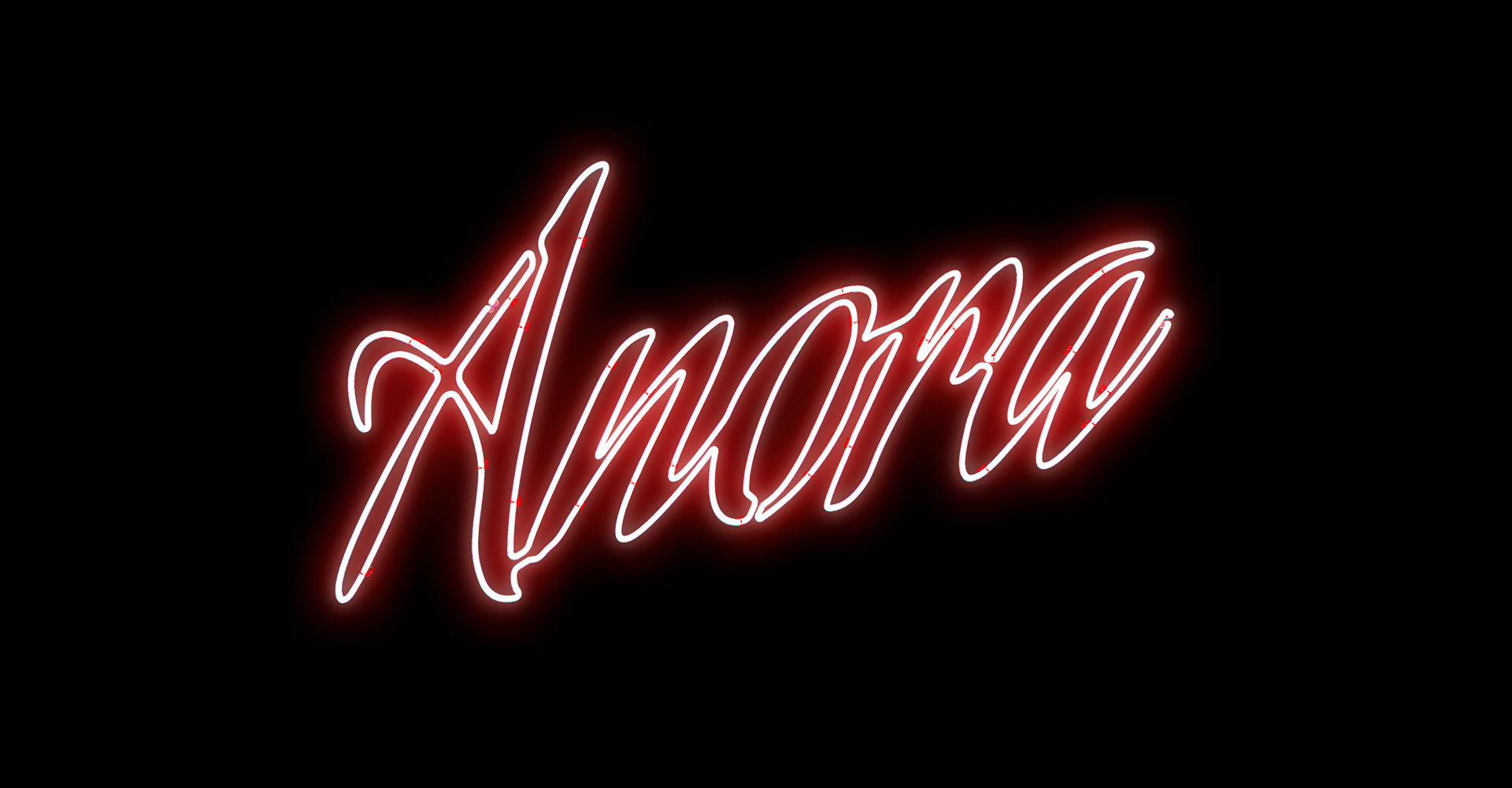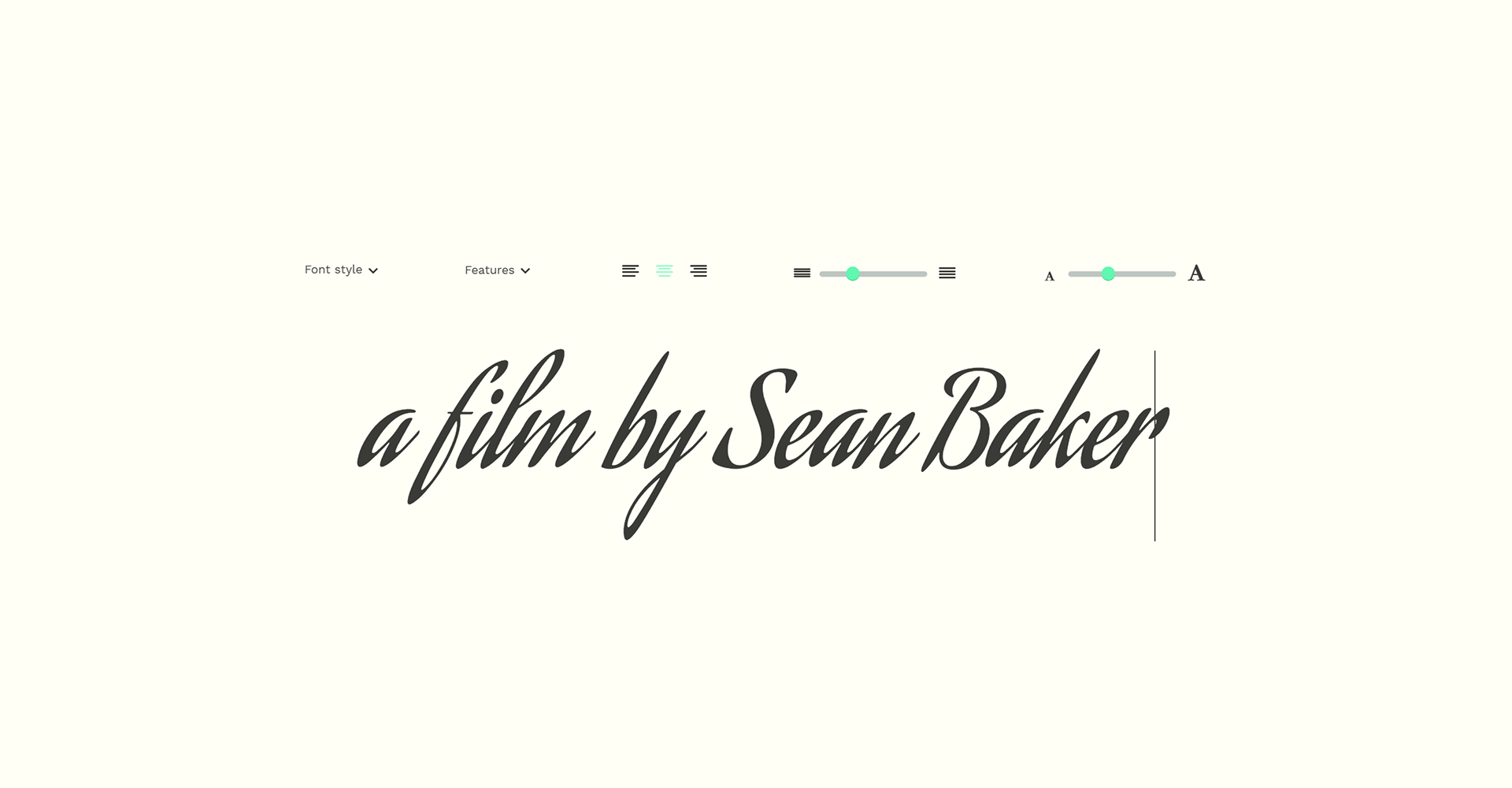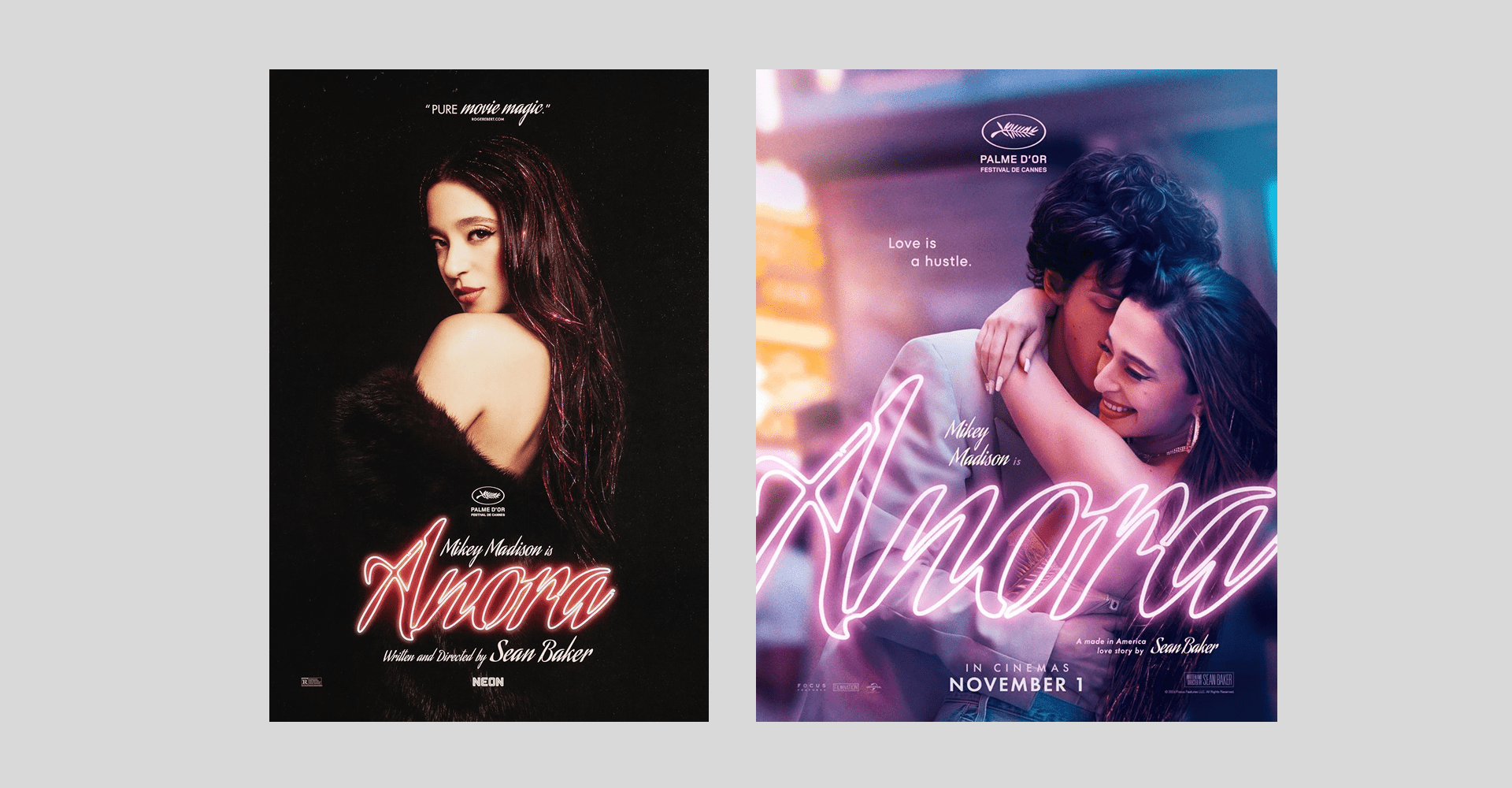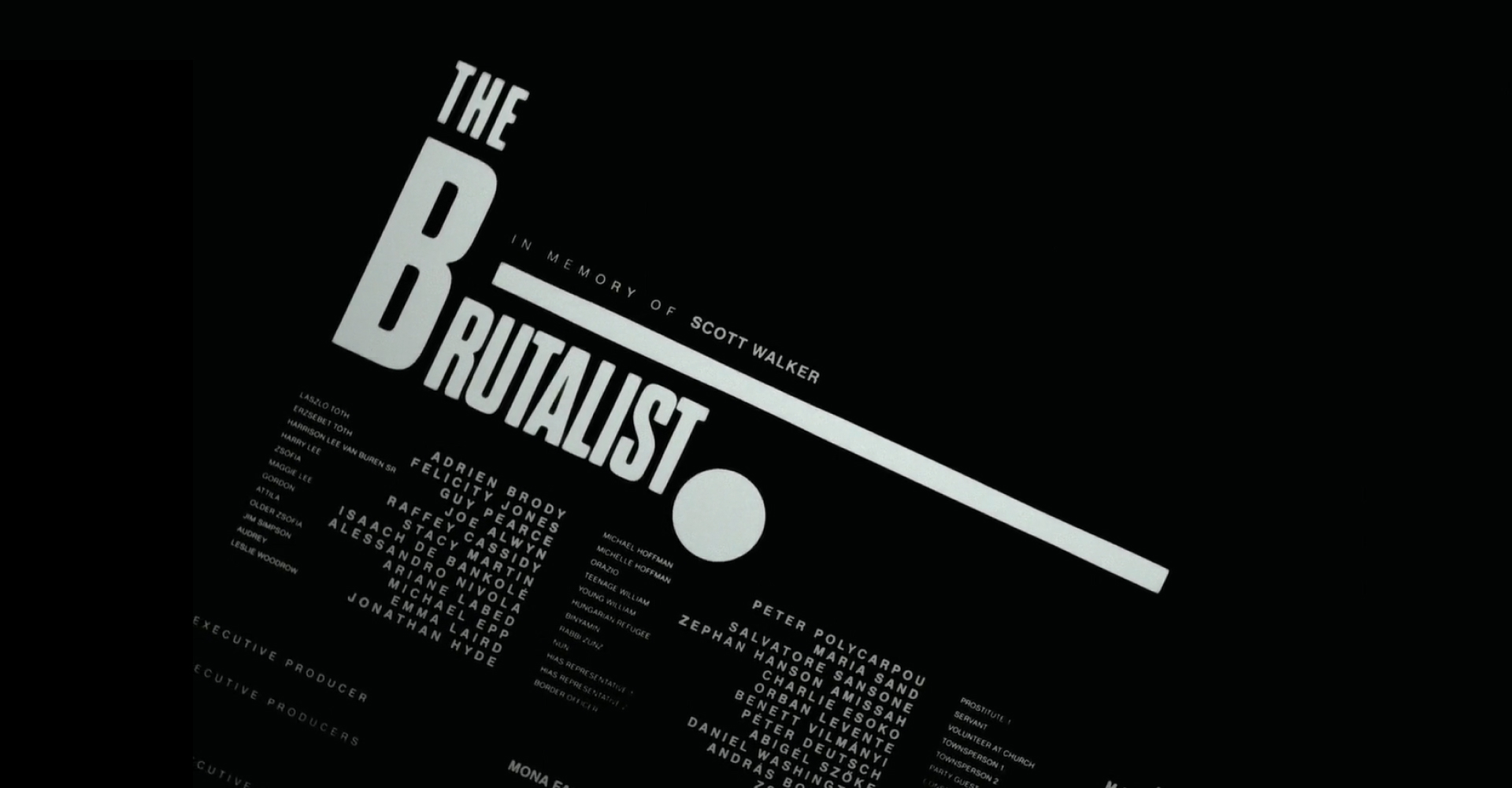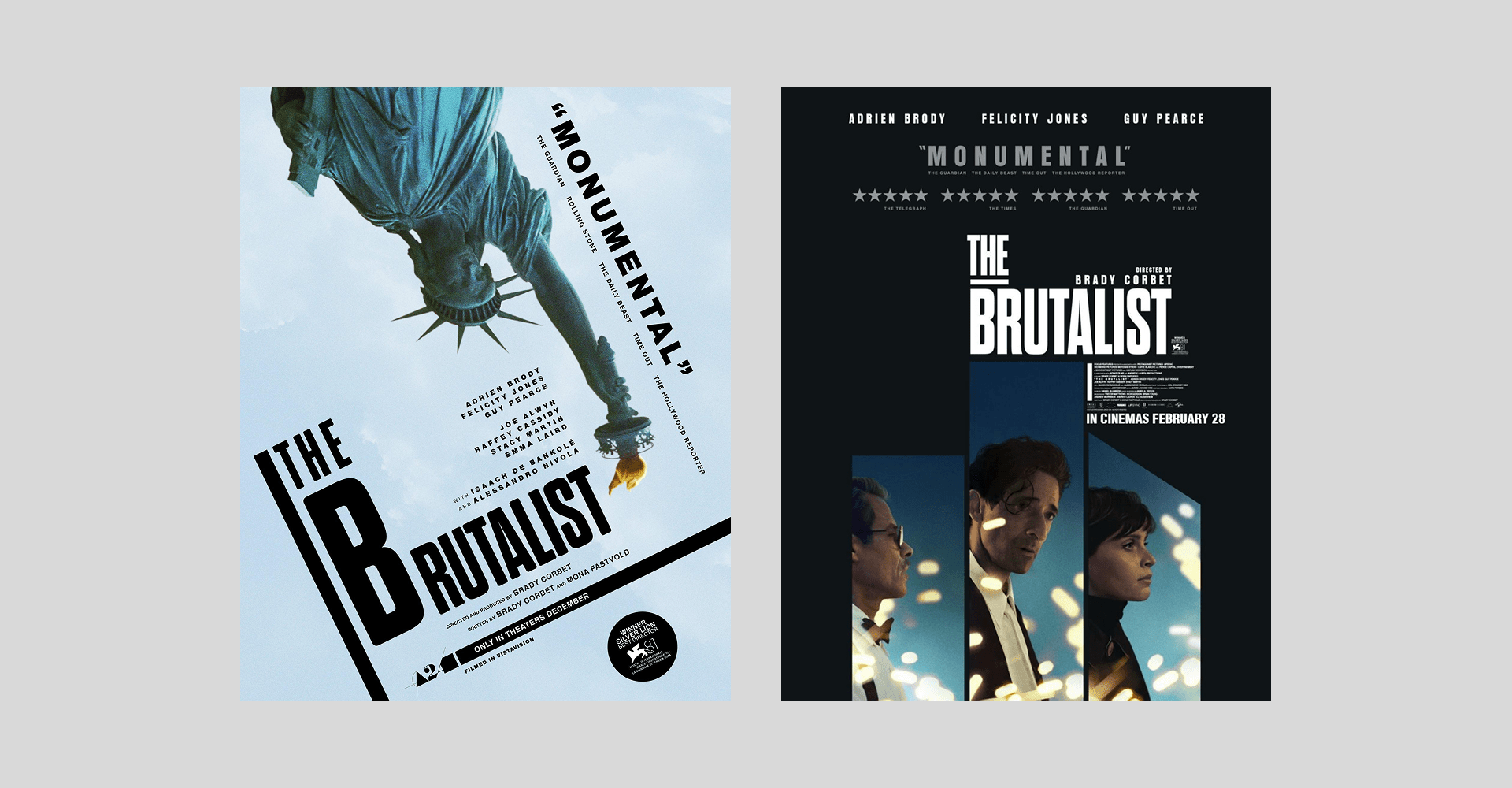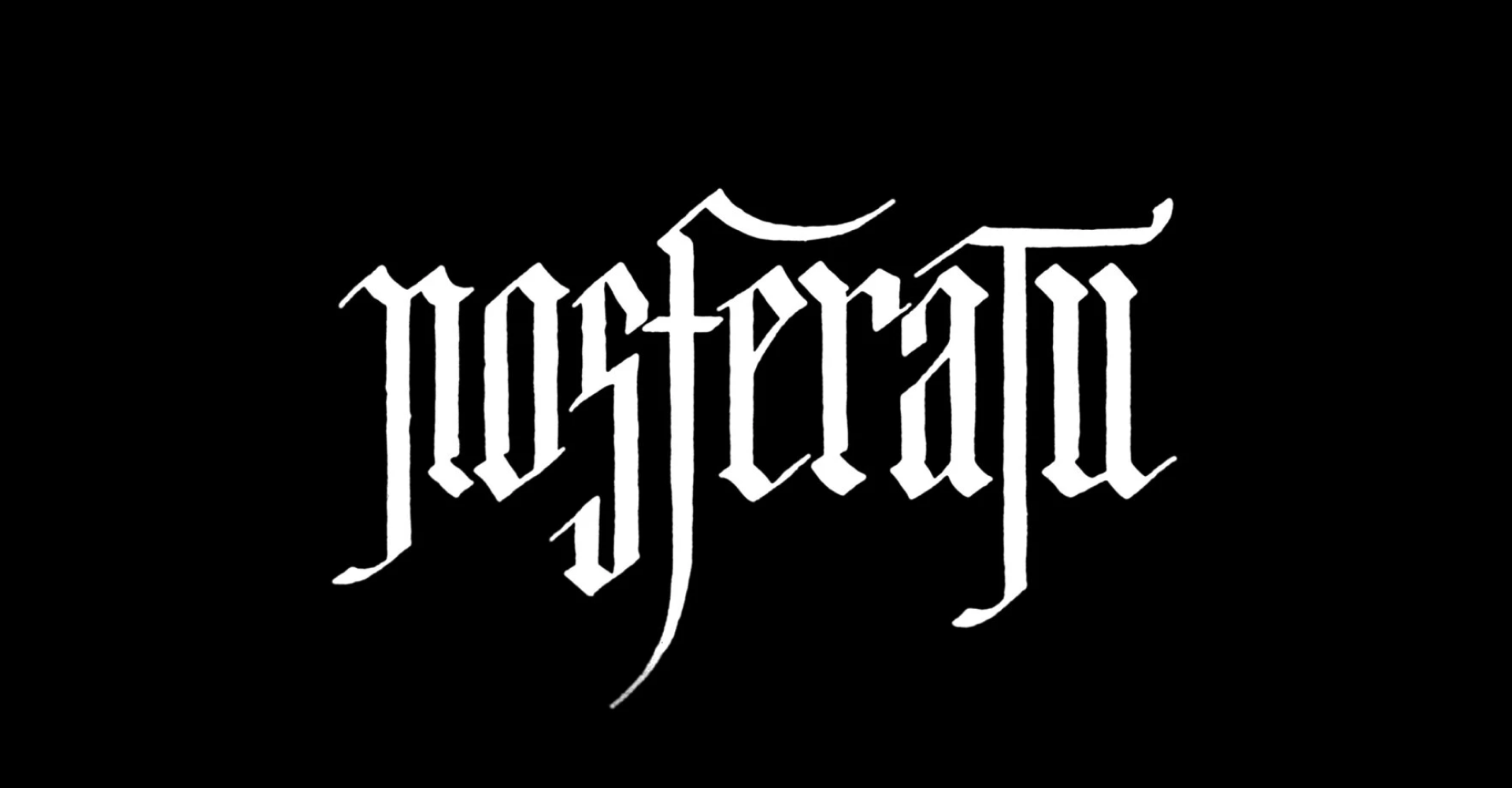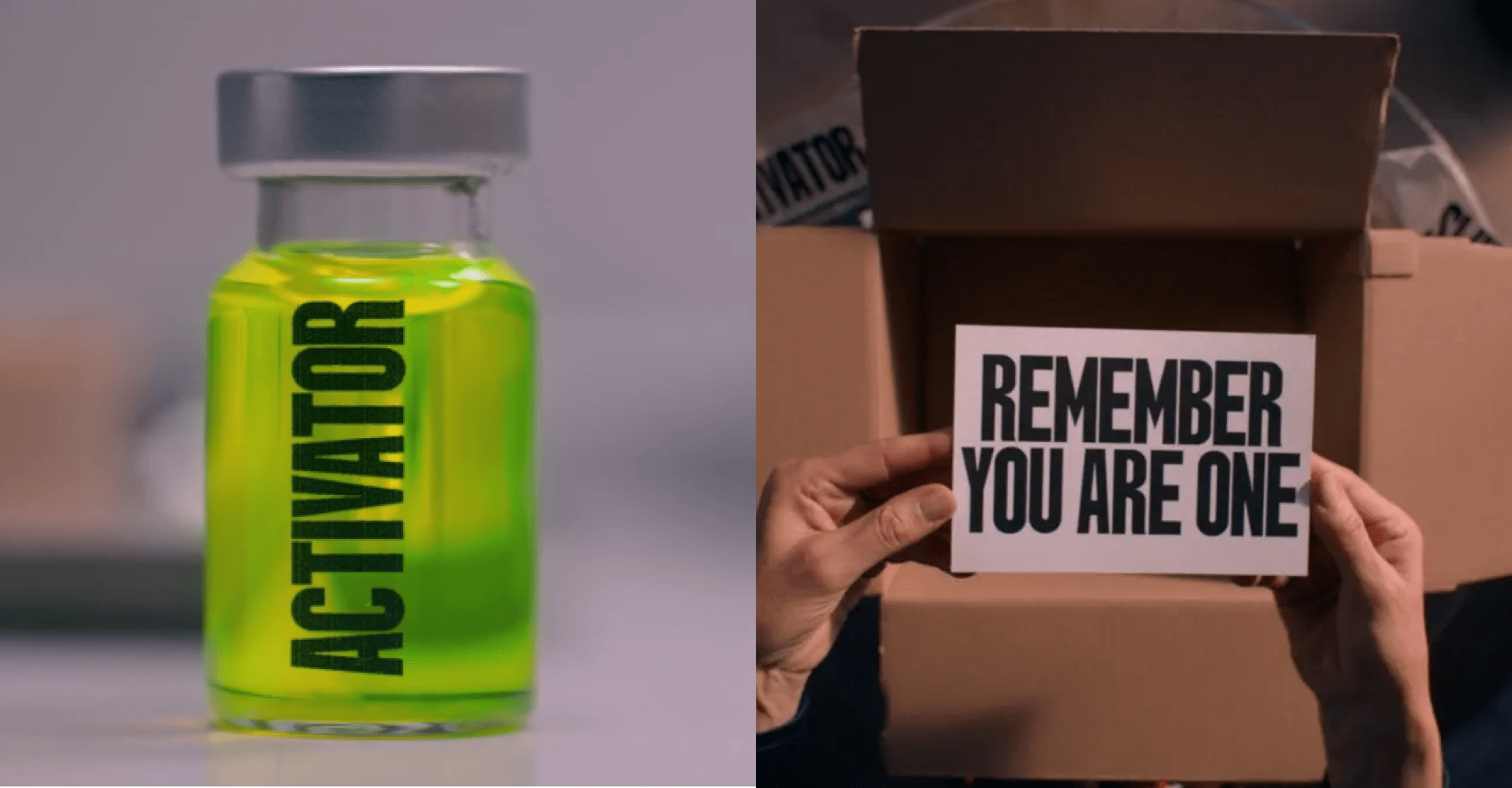
As the world prepares for the 97th Academy Awards, we too are gearing up to celebrate this iconic event. We are fascinated by every small detail that brings a movie to life. Typography and the art of title design are among those details that surprise us every year. Due to this not-so-secret passion, we’ve created a shortlist of some of the wonders found in this years nominated works. Our favorite movie titles and the hidden stories behind them. Discover how typography stole the spotlight in the big screen.
The titles for Wicked and Nosferatu created by Teddy Blanks
It’s not a common achievement to design the titles for two Oscar-nominated films, but for Teddy Blanks, it’s not as bizarre. Collaborating with huge names such as Greta Gerwig, Ben Stiller and Ari Aster, Blanks manages a directory of amazing film titles through his work at CHIPS, the New York-based graphic design studio he co-founded with Dan Shields and Adam Squires.
The lettering from L. Frank Baum’s first Oz book inspired the opening title for Wicked, a careful hand-made work that sprouted the audience with fairy-tale nostalgia.
Nosferatu brought an entirely different vibe to the screen, a gothic script that welcomed viewers into the haunting world of the movie. The work feels like it was made with a dip pen, a tool that traces back to Romain Britain. Dip pens require the user to constantly refill the ink from a bottle to continue working and they were the main writing instrument used in the 19th century. Germany, where the story of Nosferatu takes place, had a few outstanding dip pens manufacturers arount the 1800’s such as Heintze & Blanckertz and Soennecken.
Blanks worked closely with Robert Eggers, who predicts the designer to become one of the all-time greats when it comes to title design.
The upfront branding from The Substance
While ruthless and shocking, there’s a lot of scary relatability you can find inside The Substance. One of these aspects is the use of typography and branding, developed by Fugu Productions, a title and motion designed studio located in Paris, France.
The touchpoints displayed in the movie create a sense of urgency. It’s like the graphic translation of screaming into your face. While clean and minimalistic, the narrow, strong type conveys an authoritarian tone. A sort of aesthetic uneasyness.
The film does a lot of visual recalling to the 80’s. We can notice that trough the classic aerobics class set and costumes. In terms of typography, this decade featured a lot of bold, condensed sans-serif type over minimalistic backgrounds. Some examples can be found in Volkswagen printed advertisements from the 80’s, the Motorcycle Industry Council Inc. ad campaign (Futura Extra Bold Condensed) and the Akira logo (Schmalfette Grotesk).
We can see that trends are cyclical, since condensed type is becoming a preferred choice by current brands. Some of the reasoning behind this shift includes the need to stand out in overcrowded markets, taking a more agressive and vibrant approach to the way we present products. Also, narrow typefaces take up more space in vertical formats, prioritizing their visual positioning.
What are some brands that communicate similarily to The Substance in today’s market-place? Supreme comes to mind, as well as Nike’s use of typography.
The experimental layouts of The Brutalist
Sebastian Pardo was in charge of the title sequences for The Brutalist, a special chance to play around the elements of 20th-century design. Specially the influence generated by the Bauhaus movement, a pillar of graphic design history.
One of the main aspects from this period that made it into the movie was the experimental layouts, an often overlooked aspect of design that became a space of expression in the Bauhaus. Complex grids and text displays that followed different geometric shapes were common practices in their posters. As an example, the Bauhaus Weimar Exhibition poster by Joost Schmidt in 1923.
From the poster to the final credits of The Brutalist, we can see the use of diagonal layouts supported by lines that break and create spaces.
László Moholy-Nagy (who shares his first name with the main character of the film) was one of the teachers at the Bauhaus school of art. He advocated for the unhibited use of all linear directions, as well as the variation of typefaces, sizes, shapes and colors. His design vision was applied throughout publications and books released by the Bauhaus.
Herbert Bayer, one of his students, was trained in a variety of disciplines that converged in great developments such as the Universal alphabet. His typographic treatment included both vertical and horizontal alignments, the use of text as dividers of space and intentional alteration of sizes and weights.